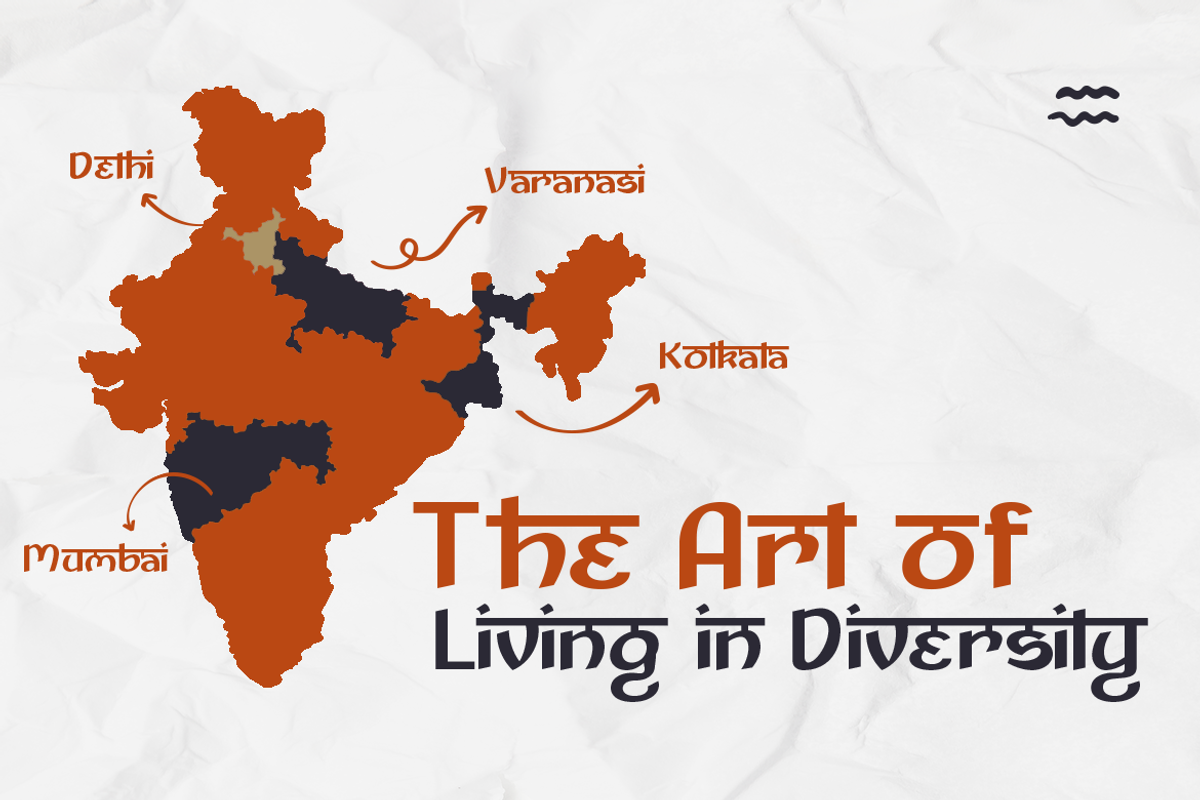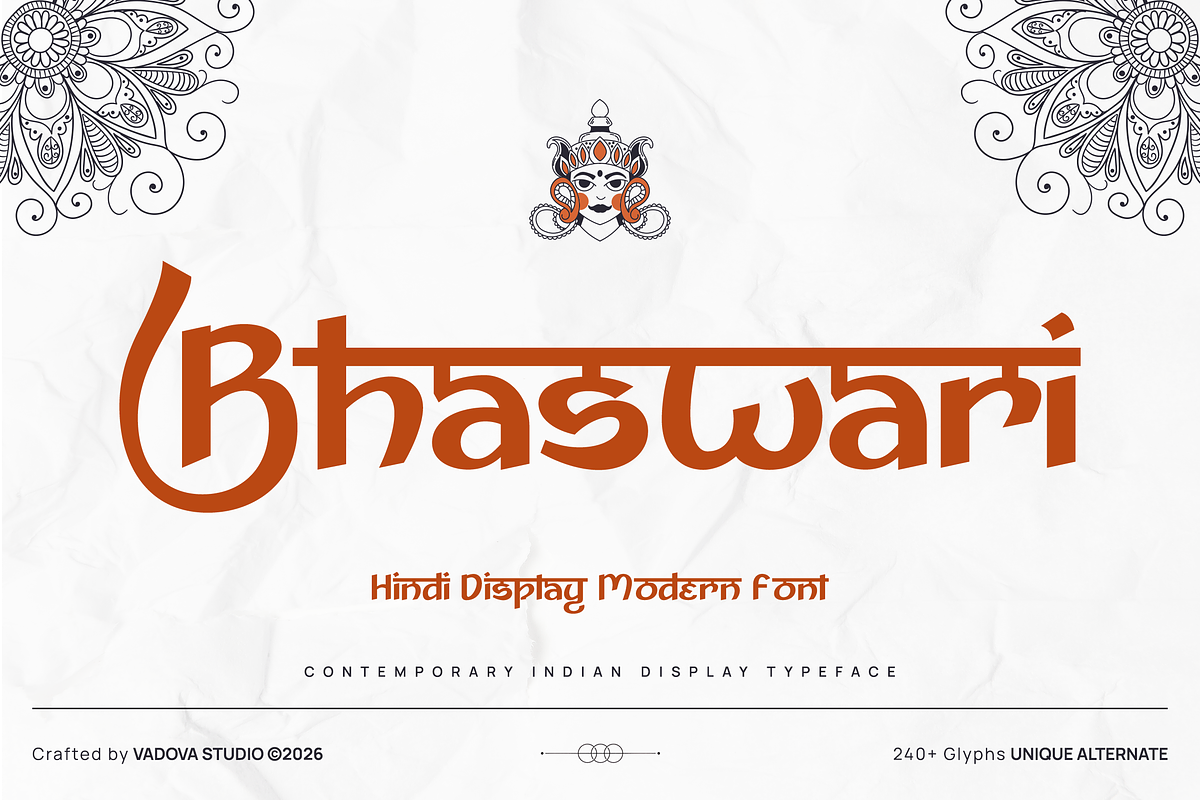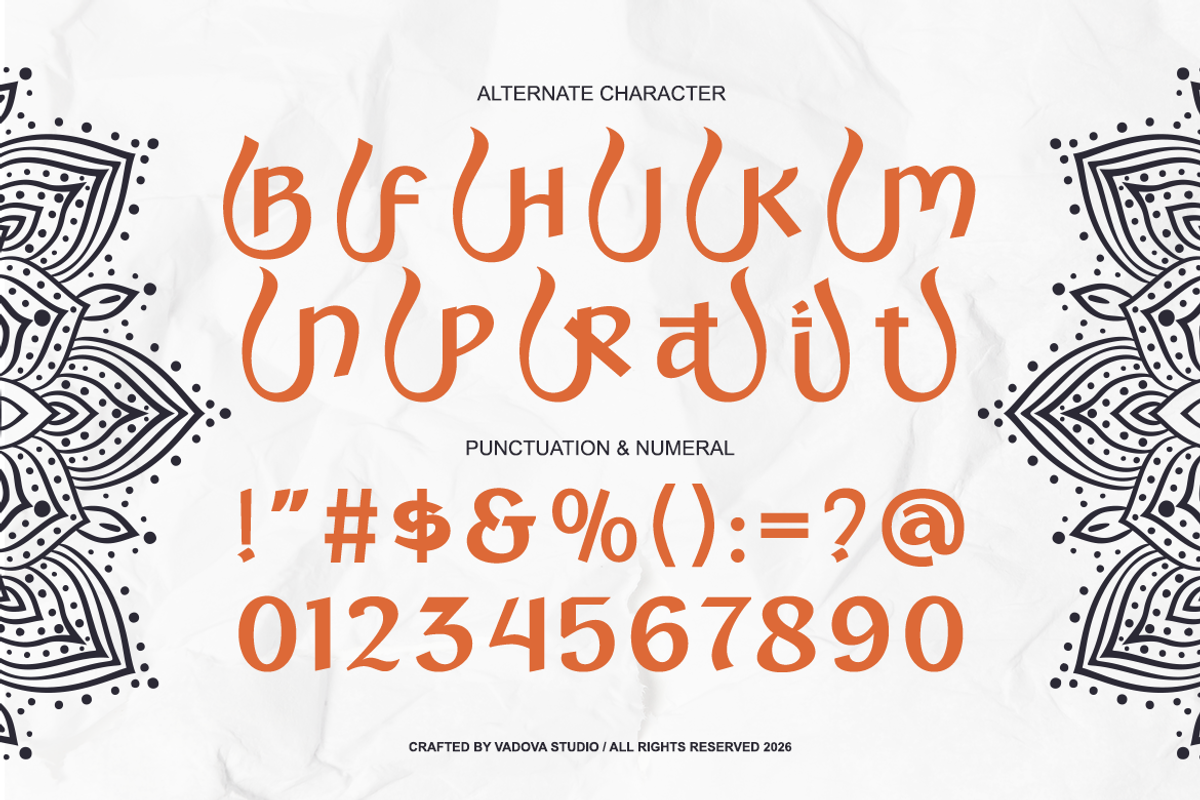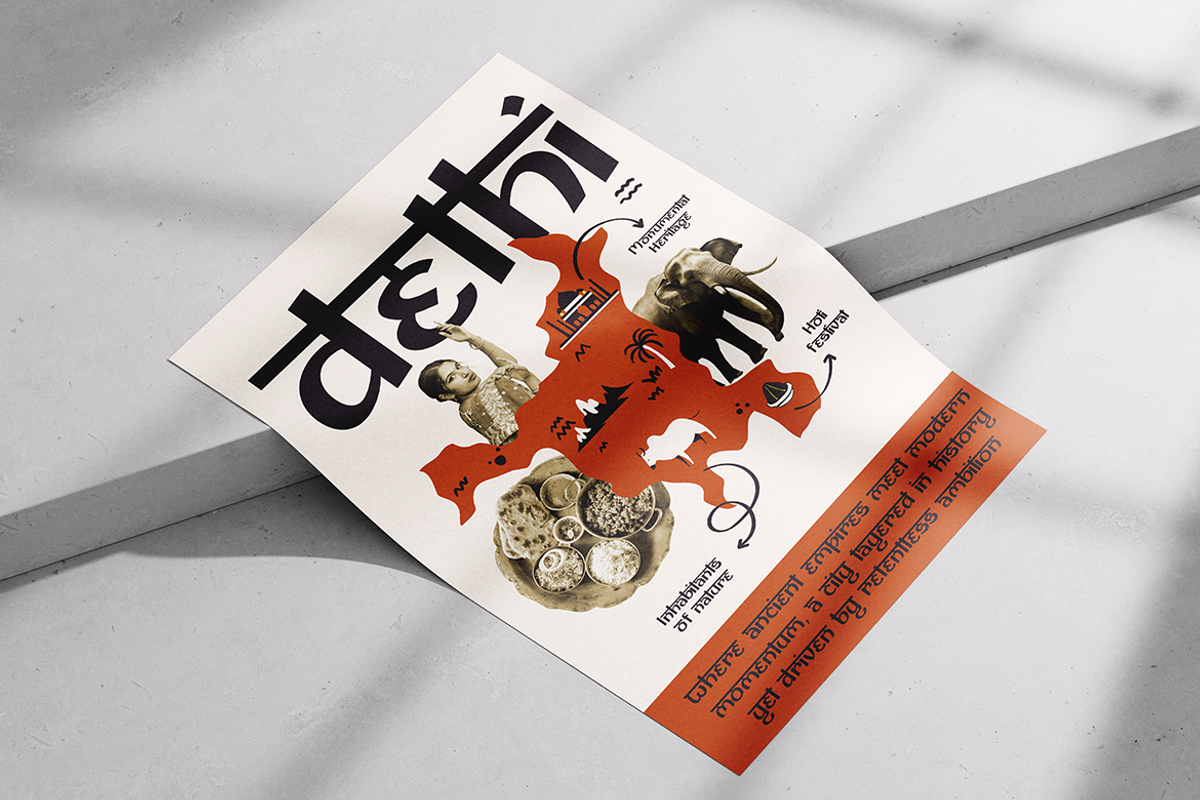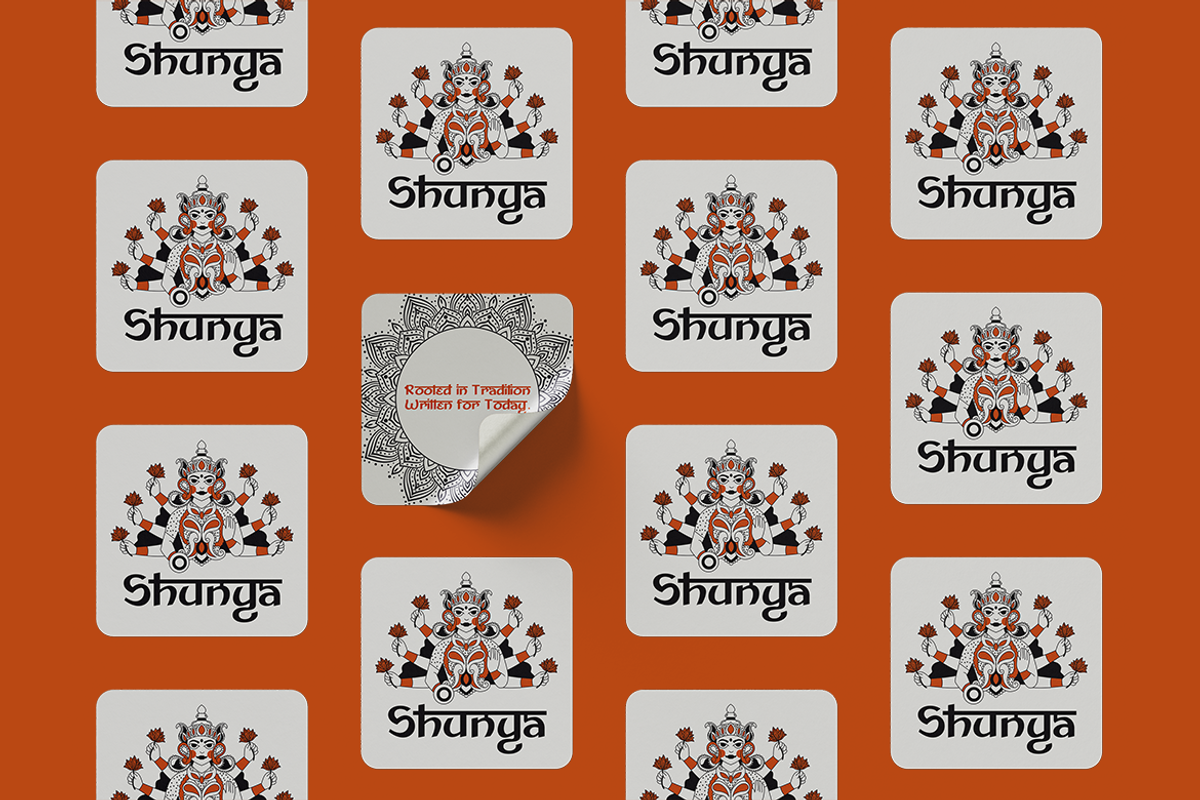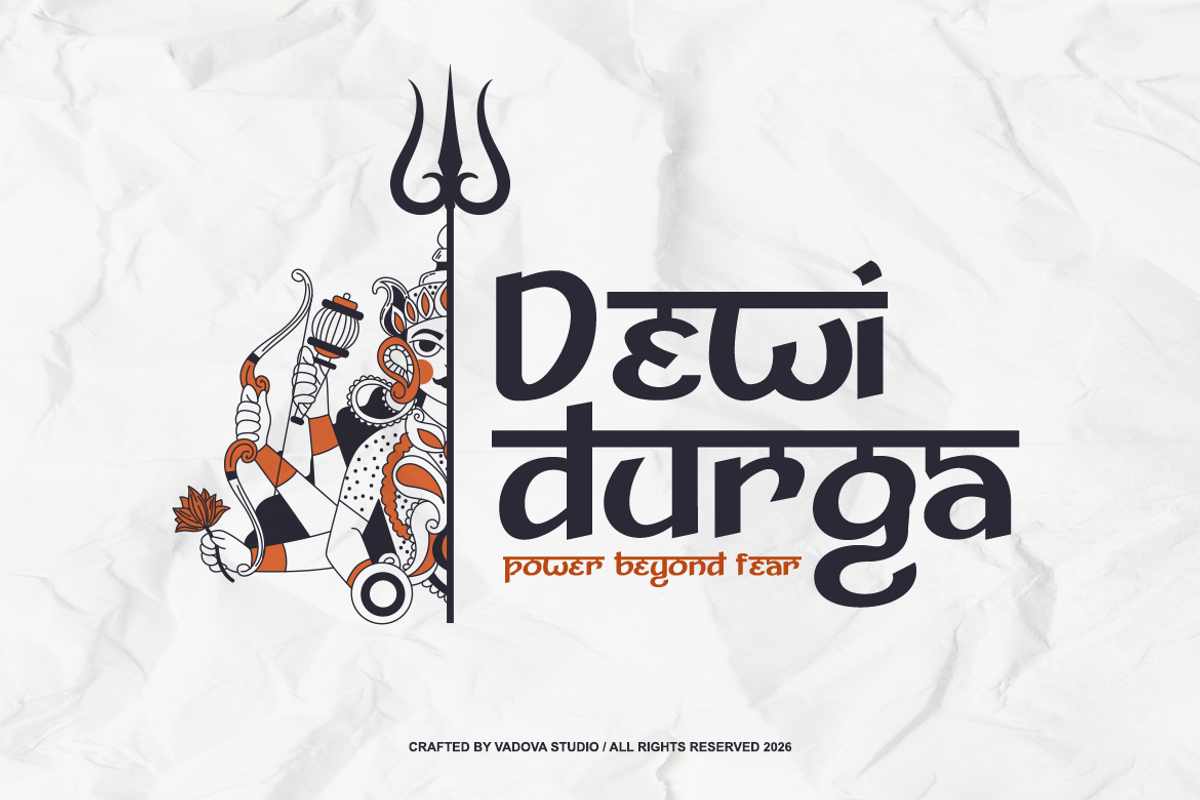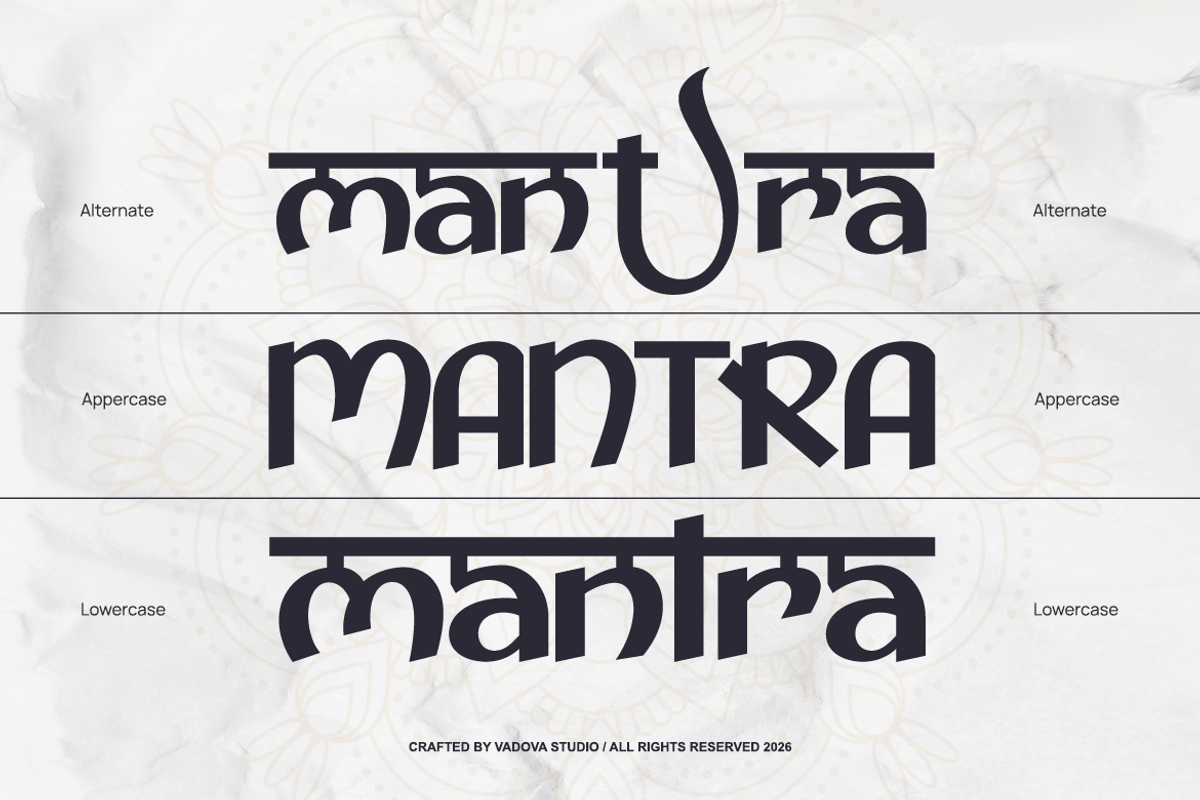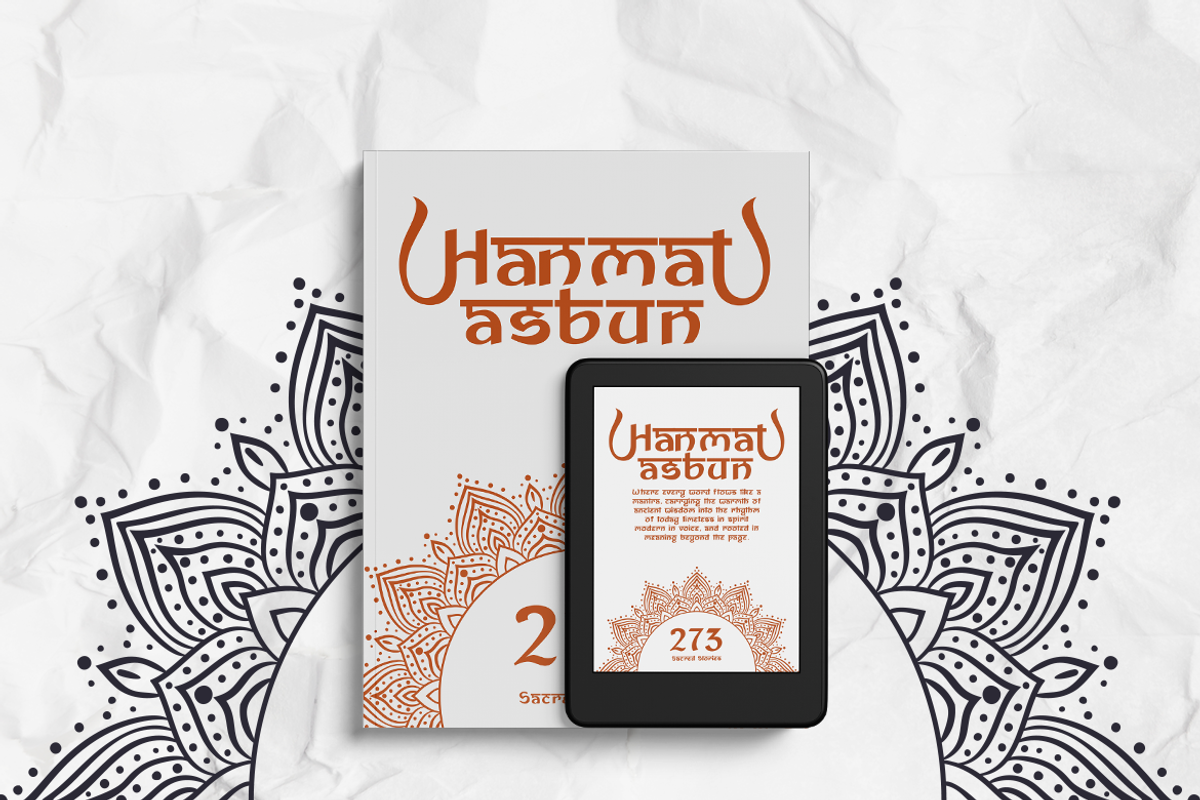
Bhaswari Hindi Display Modern Font
Bhaswari is a contemporary Hindi display font inspired by traditional Devanagari forms and modern typographic refinement. Designed with a strong headline presence, this typeface blends cultural authenticity with clean, contemporary structure. It features distinctive horizontal headline strokes (shirorekha), balanced character proportions, and over 240+ glyphs including unique alternates for expressive compositions.
Bhaswari is highly relevant for projects that celebrate Indian culture with a modern touch. Ideal for festival promotions, religious events, temple branding, yoga studios, Bollywood-themed designs, cultural campaigns, traditional product packaging, restaurant branding, and heritage-inspired logos. Its strong display presence makes it perfect for posters, invitations, and identity systems that require authentic yet contemporary Indian typography.
- Contemporary Devanagari display construction blending tradition with modern clarity
- Strong horizontal headline (shirorekha) structure creating a bold and authentic Hindi
- Stylized character forms inspired by classical Indian letter anatomy
- Balanced stroke contrast for a refined yet powerful visual presence
- Distinctive alternate characters adding expressive typographic flexibility
- Indian brand identity systems seeking cultural authenticity
- Festival promotions and religious event branding
- Temple, yoga, and spiritual business identities
- Bollywood-themed posters and entertainment graphics
- Traditional product packaging and ethnic label design